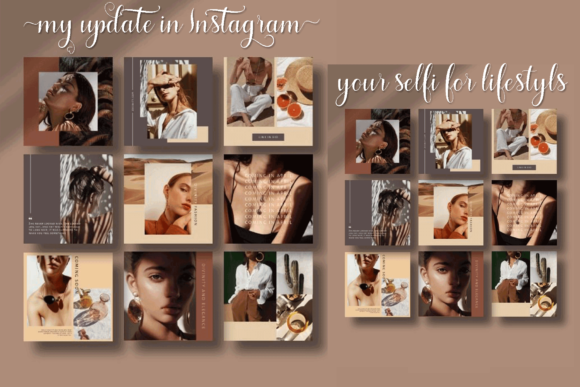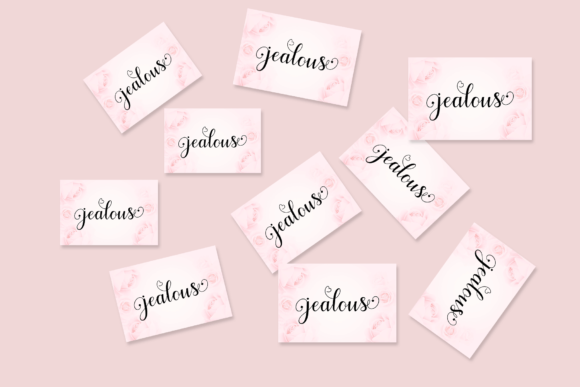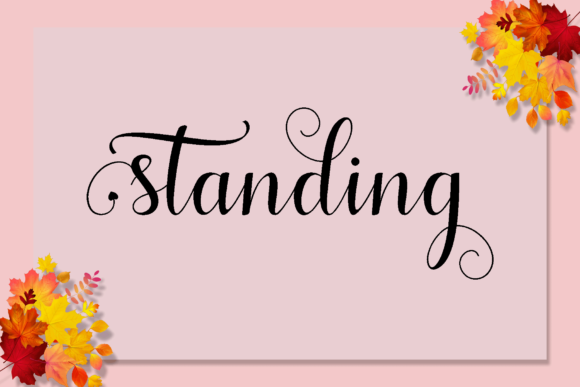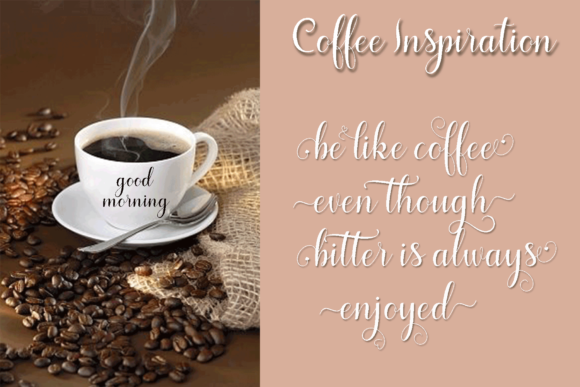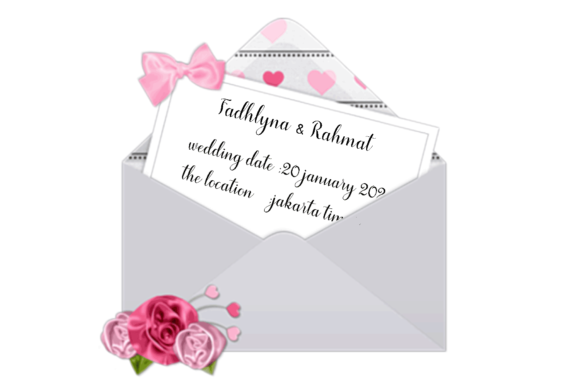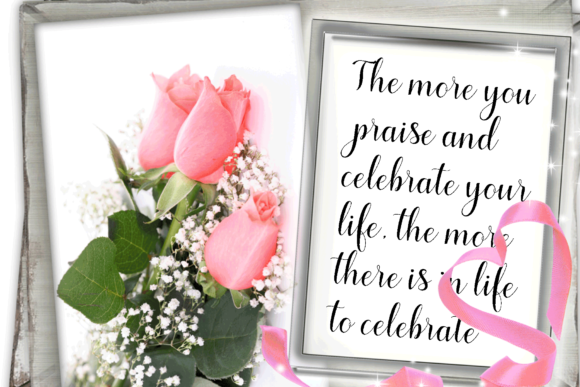
Introducing Chintya Font: The Perfect Blend of Elegance and Authenticity
In the world of typography, few fonts manage to capture the essence of timeless elegance and authentic calligraphy. Chintya Font is one such exceptional typeface that effortlessly combines classic style with a friendly feel, making it an ideal choice for designers and crafters looking to create original and outstanding designs.
The Story Behind Chintya Font
Chintya is a magical script font carefully crafted with a touch of elegance. Its creation is a result of meticulous attention to detail and a deep understanding of the nuances of calligraphy. The font’s design is inspired by the beauty of traditional script writing, yet it boasts a modern twist that sets it apart from more conventional typefaces.
Key Features of Chintya Font
So, what makes Chintya Font so special? Here are some of its key features:
• Timeless Elegance: Chintya Font exudes a sense of classic sophistication, making it perfect for designs that require a touch of luxury and refinement.
• Authentic Calligraphy: The font’s authentic calligraphic feel adds a human touch to any design, making it ideal for projects that require a personal and emotive tone.
• Classic Style: Chintya’s classic style ensures that it remains relevant and stylish, even in the ever-changing world of design.
• Friendly Feel: Despite its elegant and classic nature, Chintya Font still manages to feel friendly and approachable, making it perfect for a wide range of design applications.
Uses of Chintya Font
Chintya Font is incredibly versatile and can be used in a variety of design projects, including:
• Branding and Logo Design: Chintya’s elegant and sophisticated feel makes it an excellent choice for branding and logo design projects.
• Wedding and Event Design: The font’s romantic and whimsical feel makes it perfect for wedding and event designs, such as invitations, programs, and signage.
• Packaging Design: Chintya Font can add a touch of luxury and sophistication to packaging designs, making products stand out on store shelves.
• Digital Design: The font’s friendly and approachable feel makes it suitable for digital designs, such as social media graphics, blog headers, and email newsletters.
Tips for Using Chintya Font
To get the most out of Chintya Font, here are some tips to keep in mind:
• Pair it with contrasting fonts: Chintya Font works beautifully with contrasting fonts, such as bold sans-serifs or elegant serifs.
• Experiment with font sizes: Chintya Font can be used at a variety of font sizes, from large headings to smaller body text.
• Add creative touches: Consider adding creative touches, such as swashes or flourishes, to give your designs an extra special something.
In conclusion, Chintya Font is an exceptional typeface that offers the perfect blend of elegance, authenticity, and friendliness. Its timeless classic style and authentic calligraphic feel make it an ideal choice for designers and crafters looking to create original and outstanding designs. With its versatility and range of uses, Chintya Font is sure to become a go-to font in any designer’s toolkit.
Get Creative with Chintya Font